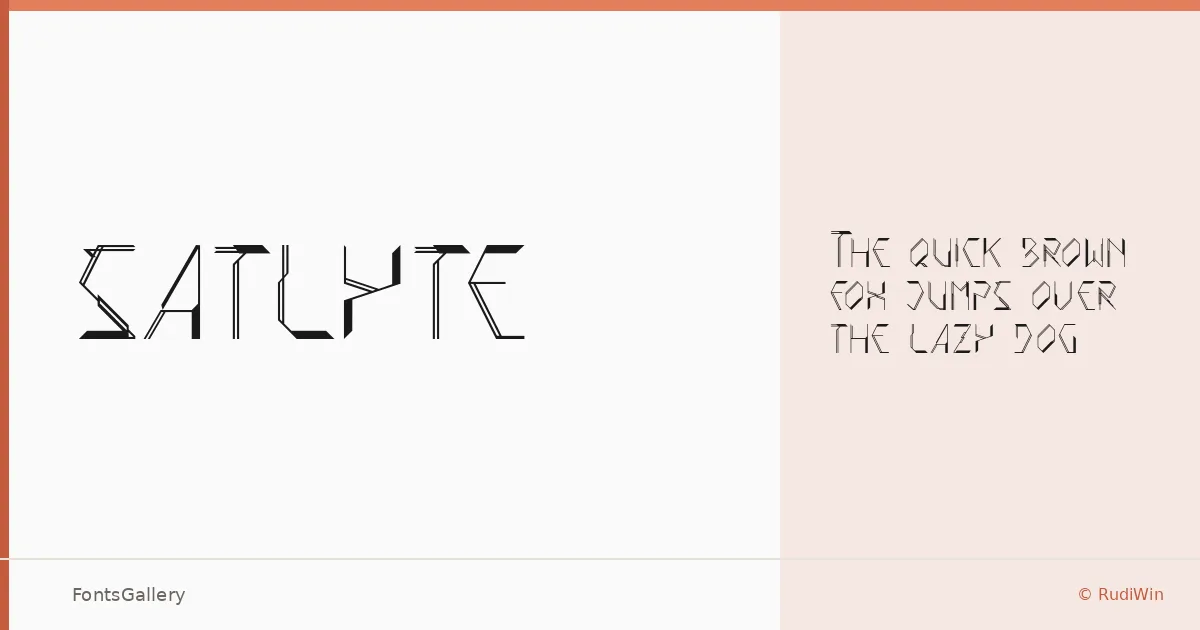
About SATLYTE Font
There is something raw and deliberate about this face — letterforms that carry a futuristic edge without losing the grit of grunge underneath. Designed by RudiWin, it arrives as a single Regular weight in OTF format, with partial Latin coverage that keeps its scope focused and its character sharp.
Sitting squarely in the decorative category, it channels a bold, modern energy that feels at home in contexts where type needs to do real visual work rather than simply sit on the page. The single Regular cut is not a limitation — it is a concentrated statement, with forms that lean futuristic while retaining enough roughness to avoid feeling sterile. That tension between the mechanical and the worn is what gives it presence at large sizes.
The natural habitat here is anywhere scale and impact matter: posters, magazine covers, branding wordmarks, logos, and T-shirt graphics where the type itself carries the visual weight. Because the Latin support is partial, verify character coverage before committing to a multilingual layout. When you need to balance it against something more neutral, it pairs well with Helvetica or Aileron for workhorse text, while Canela, Abrade, or ABC Arizona offer more editorial contrast for headline and subhead combinations.